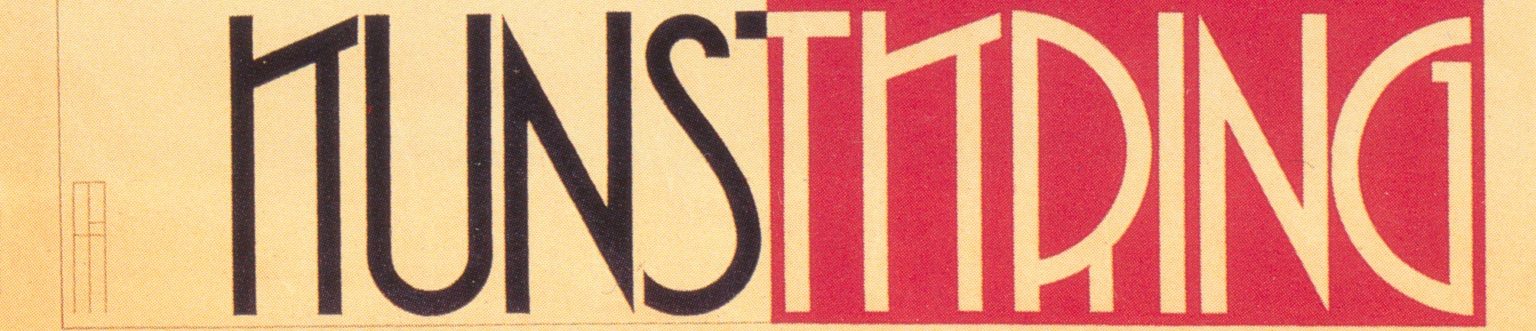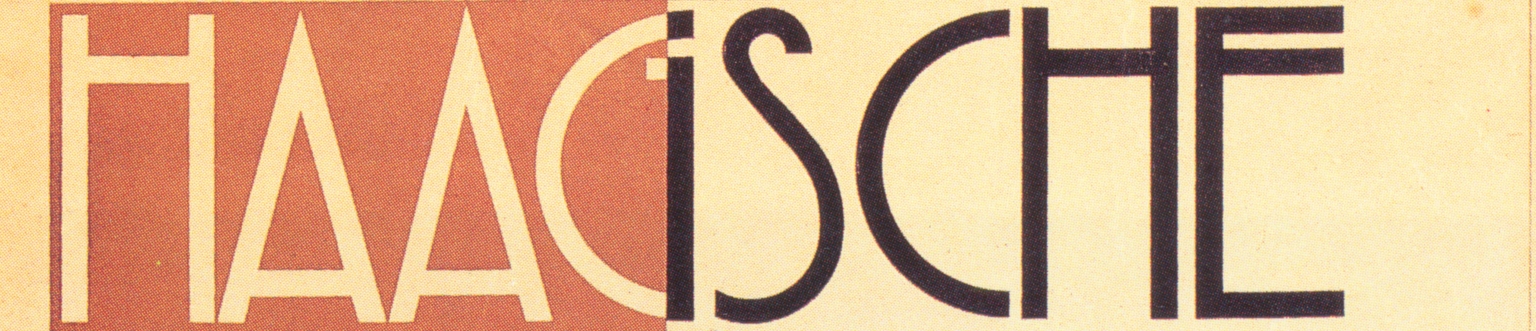
Kring
Kring is a condensed display typeface designed by Ramiro Espinoza and inspired by the lettering on a vintage poster for an exhibition organized by the Haagsche Kunstkring, designed by Dutch artist and architect Pieter A. H. Hofman (1886–1965). The original alphabet is characterized by light strokes, condensed proportions, and a highly reduced geometric vocabulary, combining restrained Deco influences with an abstract approach to letterform construction.
Espinoza studied the proportions, geometry, and formal relationships of the original lettering and translated these qualities into a contemporary digital typeface.
With its elegant proportions and delicate geometric forms, Kring is particularly well suited for fashion, beauty, cosmetics, makeup, and fragrance branding, as well as posters, editorial design, packaging, book covers, exhibition graphics, websites, and cultural projects. Its refined, condensed structure gives it a distinctive presence in applications that call for a sophisticated and understated typographic voice, while retaining a clear connection to early twentieth-century Dutch avant-garde design.